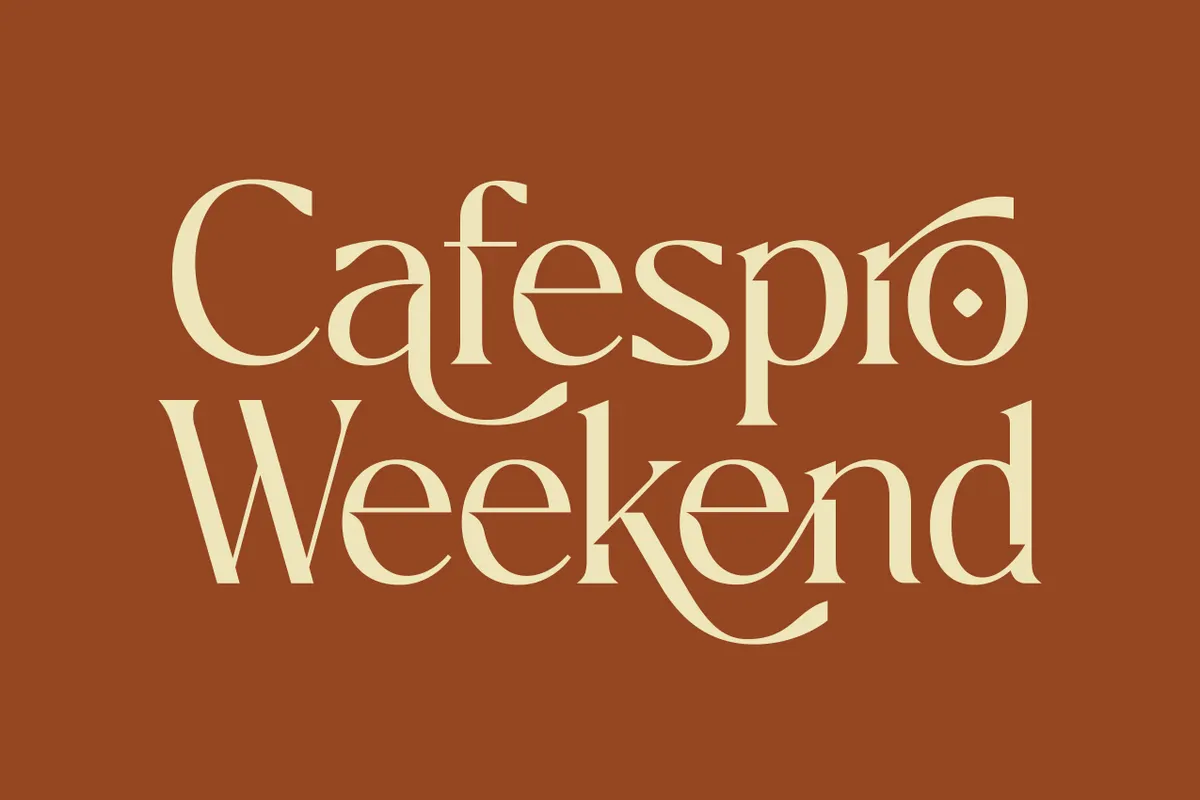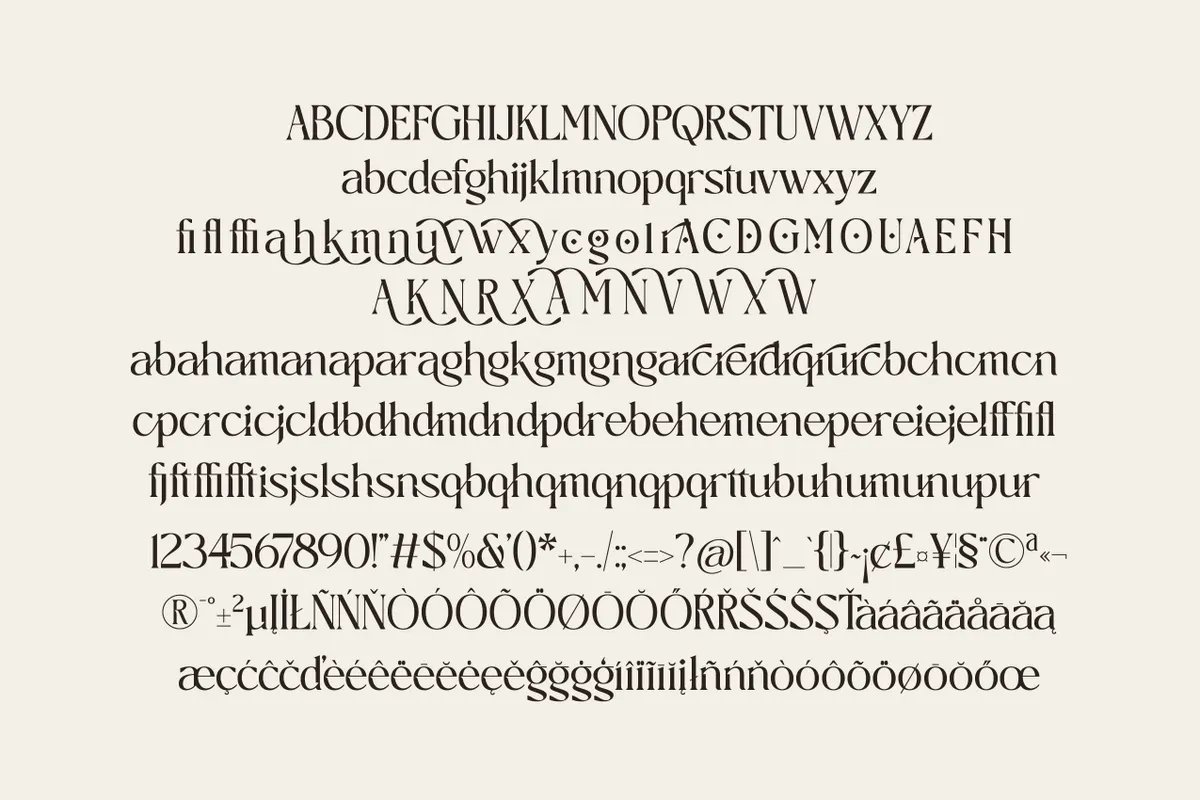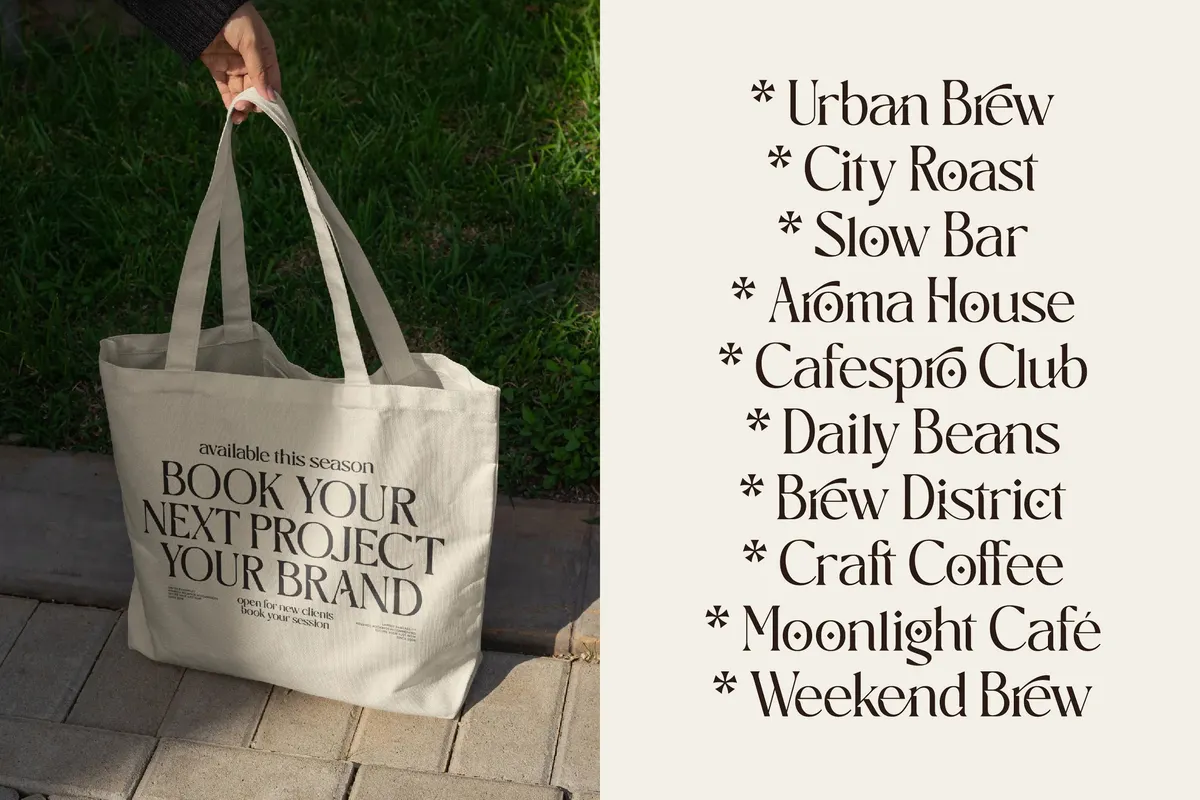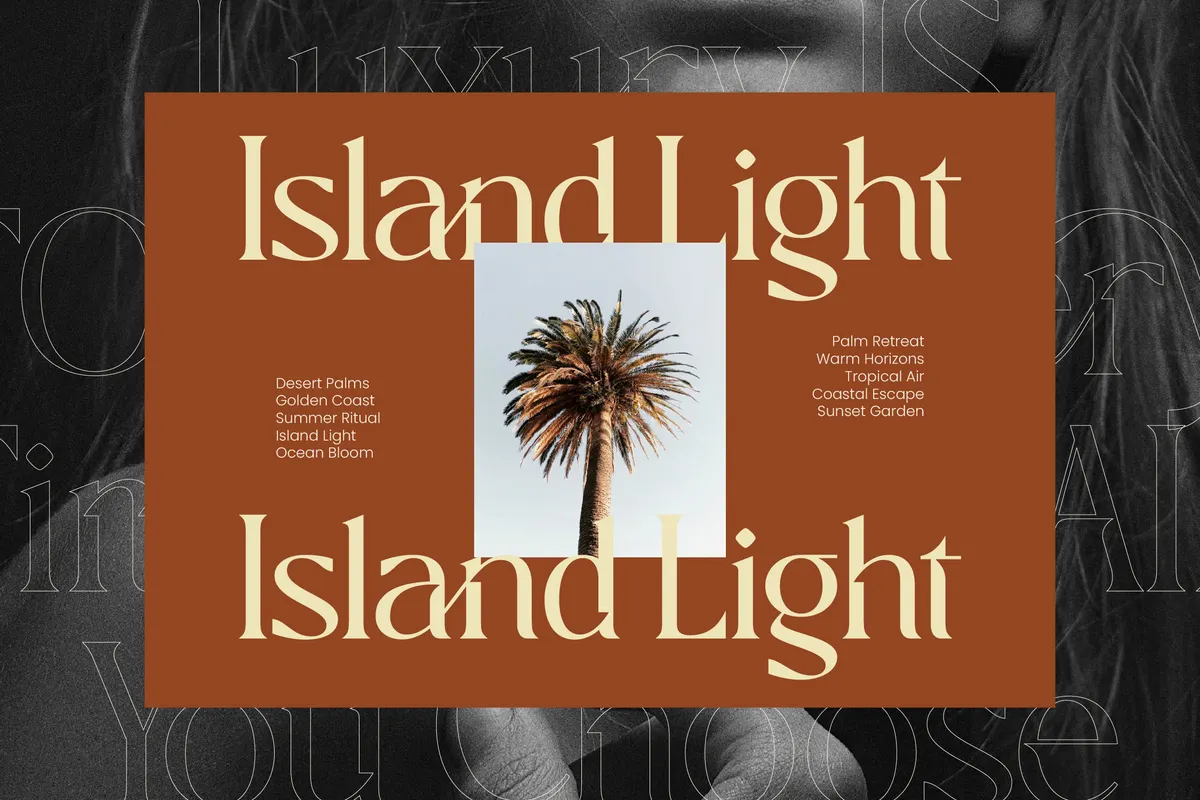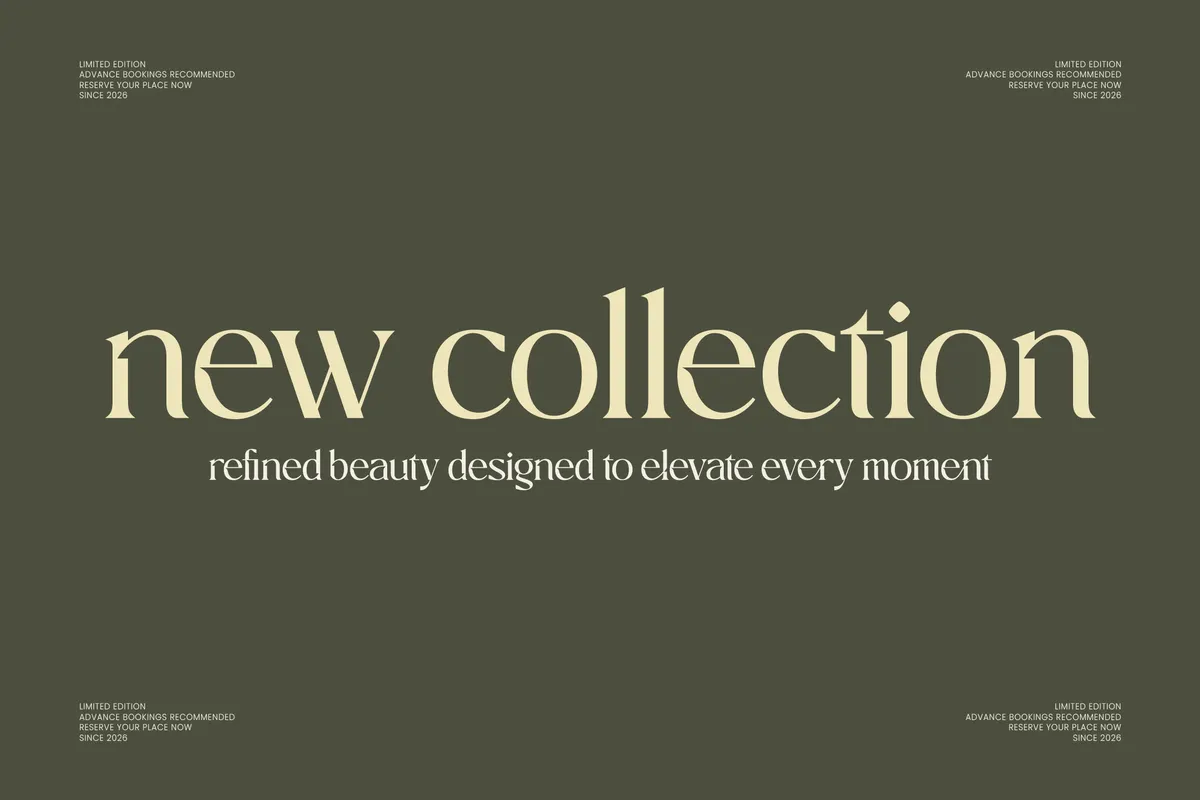
Cafespro Weekend - Elegant Serif Font
Cafespro Weekend builds high-contrast serif capitals with graceful curves and a polished editorial finish, closer to a fashion-magazine cover line than a plain text serif. An italic companion carries the same construction at a slant, and sixty-six discretionary ligatures fuse common letter pairs into single flowing shapes. Thirty-eight stylistic alternates swap in looser forms for a wide run of lowercase and uppercase letters, reachable through the glyph panel rather than a one-click OpenType toggle.
Use it for luxury branding, boutique identities, fashion campaigns, premium packaging, and editorial headlines that want a polished, upscale voice.
- Uppercase & lowercase;
- Numerals, punctuation & symbols;
- 66 discretionary ligatures, fractions, superscript figures;
- 38 stylistic alternates, accessible via the glyph panel;